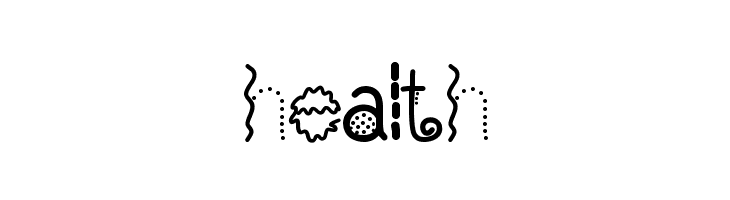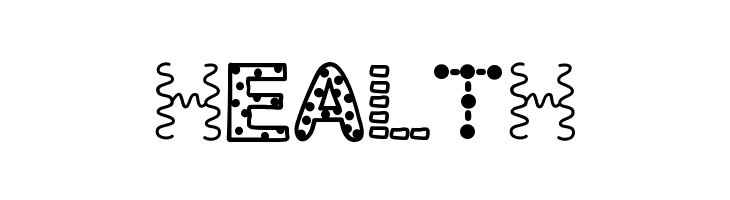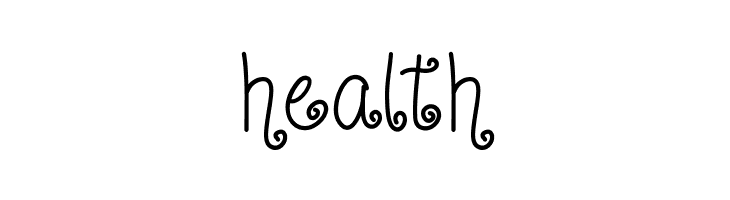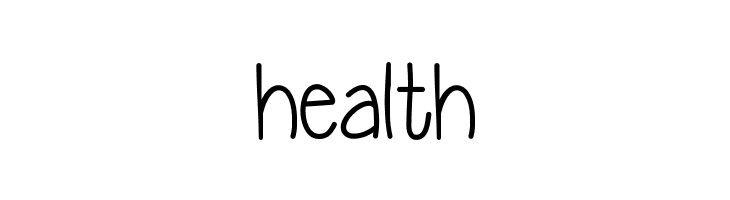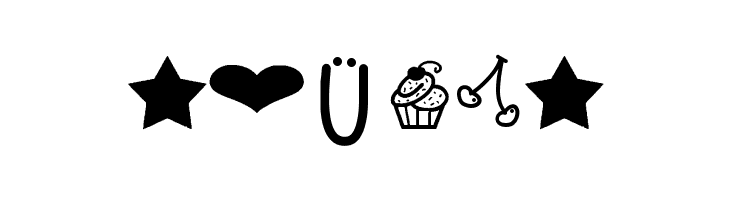
A playful, handwritten font with fluid, flowing letterforms and a casual style.
A playful, dot-based decorative font with a modern flair.
A playful, handwritten font with a casual and friendly appearance.
A playful, handwritten font with thin, uneven strokes and a casual style.
A playful, handwritten font with rounded, irregular characters.
A playful font with heart motifs embedded in each character, perfect for romantic themes.
A playful, handwritten font with smooth, rounded strokes and a casual, friendly appearance.
A playful, handwritten font with rounded, uniform strokes.
A playful, hand-drawn font with a sketchy, artistic style.
A playful, rounded font with smooth curves and a friendly appearance.
A tall, narrow font with sleek, elongated characters and tight spacing.
A playful, hand-drawn font with rounded, bold characters and a casual style.
A playful, casual handwritten font with smooth, flowing lines and a lively vibe.
A playful, handwritten font with a lively and informal style.
A playful, casual handwritten font with expressive strokes.
A tall, narrow, and modern font with elongated, thin characters.
A playful, handwritten font with smooth, rounded edges and a casual style.
A playful, casual handwritten font with smooth, rounded edges.
A playful, handwritten font with tall, narrow letters and consistent stroke thickness.
A playful, handwritten-style font with rounded edges and a casual feel.
A playful, connected font with lines and dots creating a whimsical look.
A playful font with heart motifs on each character, perfect for romantic and fun designs.
A festive, snowflake-adorned font perfect for holiday-themed designs.
A playful, thin, and whimsical font with elongated strokes and a casual style.
A modern, dashed line font with a playful and geometric style.
A playful, narrow handwritten font with a casual and friendly style.
A playful, handwritten font with smooth, flowing lines and a casual style.
A playful, hand-drawn font with thin, flowing lines and a whimsical style.
A playful, handwritten font with smooth curves and a casual style.